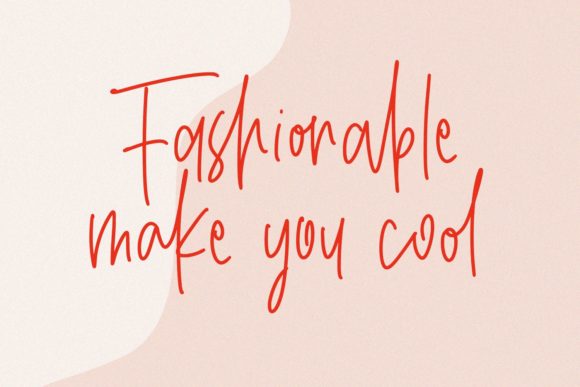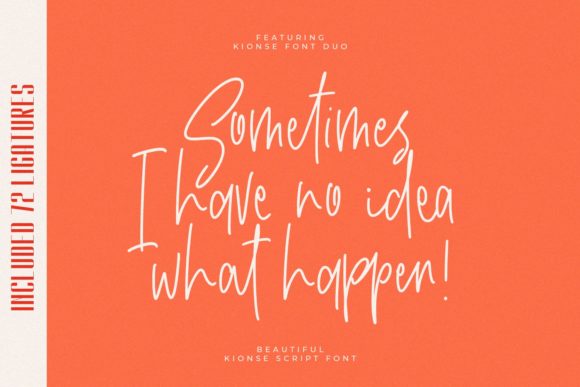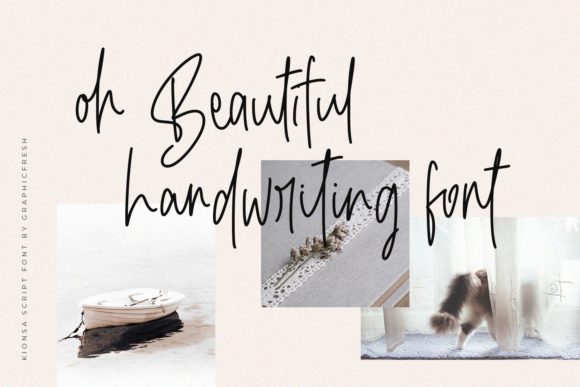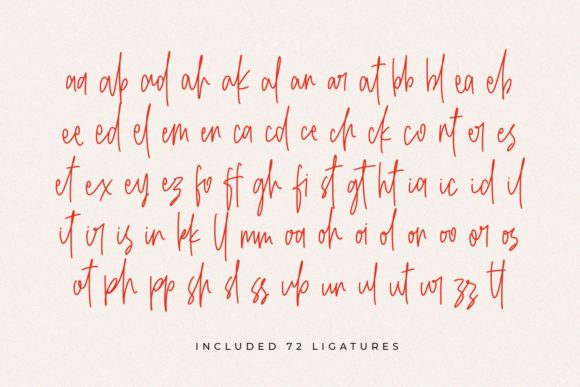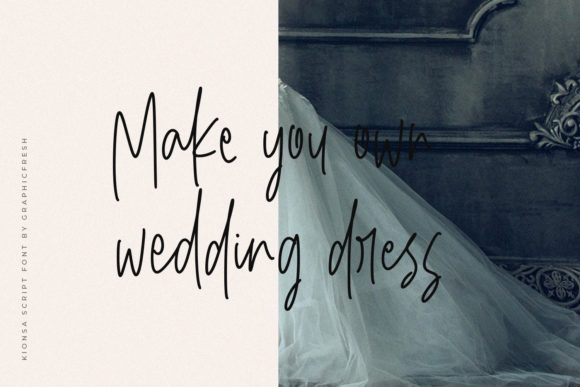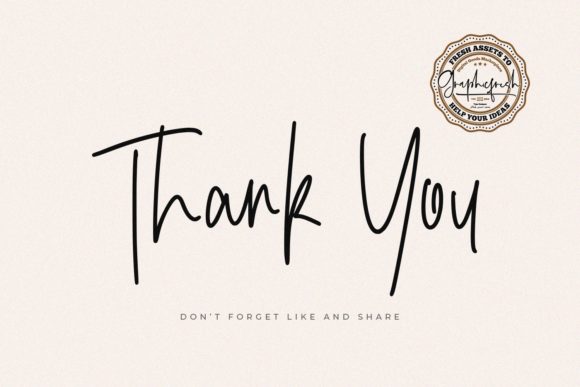
Introduction to Kionsa Font
You’ve finally found the perfect moment to unleash your creativity – the blank canvas stares back at you, waiting for your brushstrokes to bring it to life. As a designer, you know that the right font can elevate your project from ordinary to extraordinary. And that’s where Kionsa Font comes in – a stunning handwritten font that adds a touch of elegance to any creative endeavor.
| 👤 Author | Graphicfresh |
With its unique blend of charm and sophistication, Kionsa Font is the perfect design resource for those seeking high-quality fonts for their Instagram posts, blog headers, or even calligraphy scripts for DIY projects. The best part? It’s available for free download, making it an invaluable asset for designers and creatives alike.
Whether you’re working on a personal project or a commercial design, Kionsa Font offers the perfect balance of style and versatility. Its transparent background makes it easy to customize and layer, giving you the freedom to experiment with different designs and layouts.
Key Features of Kionsa Font
- Comes with a transparent background, making it easy to integrate into various design elements.
- Features a unique, modern design that can add a touch of sophistication to any project.
Honest Review: Kionsa Font
As a designer, I’m always on the lookout for high-quality design resources that can elevate my creative projects. Recently, I stumbled upon the Kionsa Font, and I’m excited to share my thoughts on this free download.
What works well with the Kionsa Font is its versatility. It comes in a variety of weights and styles, making it perfect for a range of design applications, from headings to body text. I’ve used it for a few projects, and it always adds a touch of sophistication and elegance. ✨
The font is also great for creating transparent backgrounds, which is a huge plus for designers who want to create visually appealing and modern designs. The level of detail and intricacy in the font is impressive, and it’s clear that the designers who created it put a lot of thought into its design.
- Versatile for various design applications
- Perfect for creating transparent backgrounds
One limitation of the Kionsa Font is that it’s a bit limited in its expressiveness. While it’s great for formal and corporate designs, it may not be the best choice for more playful or creative projects. ⚠️
Overall, I’m really impressed with the Kionsa Font. It’s a high-quality design resource that’s perfect for designers who want to add a touch of sophistication to their projects. I would definitely recommend it to anyone looking for a reliable and versatile font.
Tips for Getting the Most Out of Kionsa Font
To get the most out of Kionsa Font, use it on a transparent background to create a clean and modern look. You can also pair it with other design elements, such as graphics and images, to create a unique visual identity.
Kionsa Font is ideal for a variety of creative projects, including:
- Posters and social media graphics
- Web design and e-commerce sites